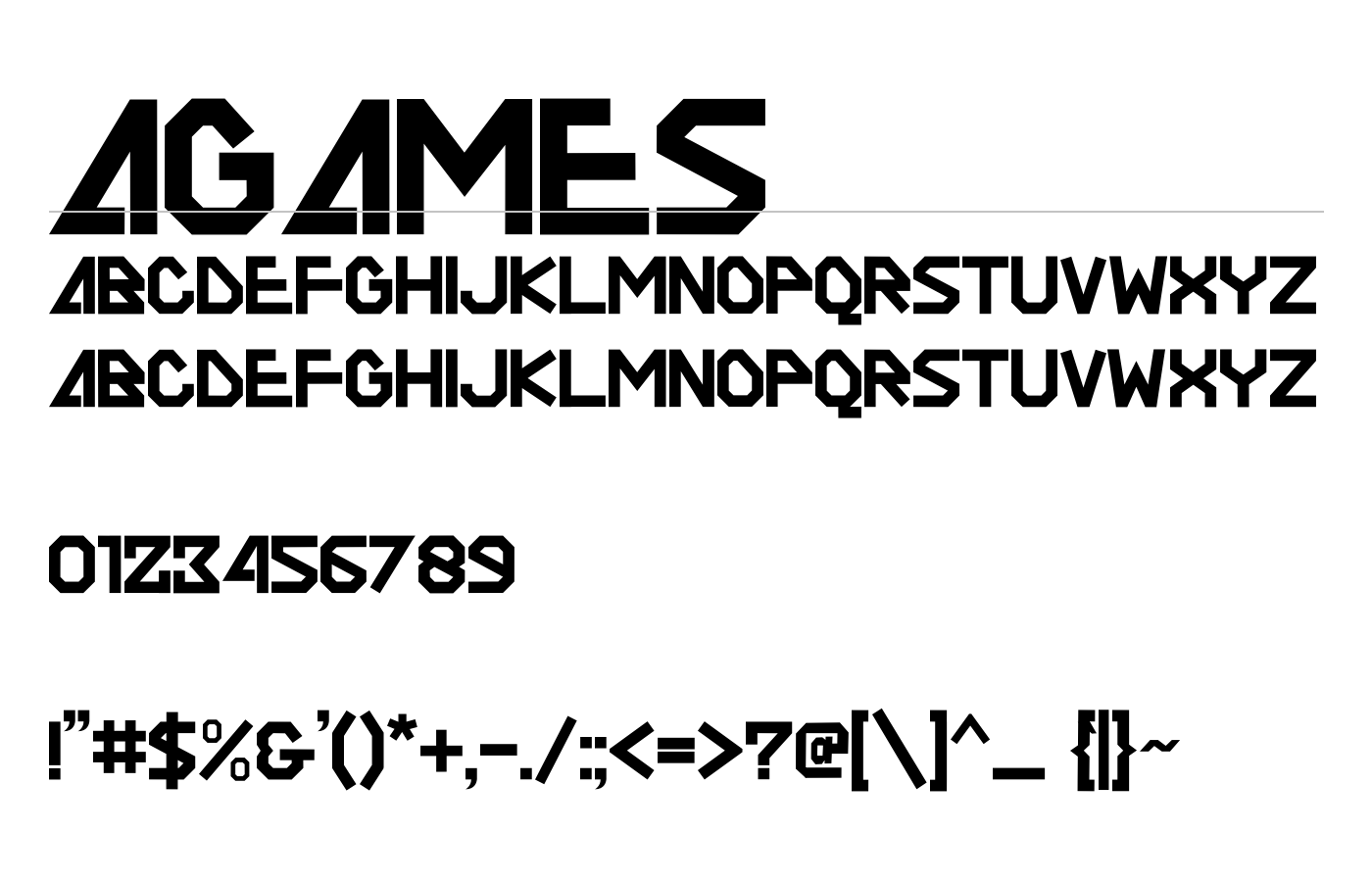
Agoxes Game Font is a bold, geometric sans serif typeface with a futuristic, angular design perfectly suited for gaming and tech-related projects. Its strong, sharp edges and uniform stroke width give it a modern and energetic feel, making it ideal for eye-catching logos, headlines, and digital interfaces where a high-impact, playful yet serious vibe is desired. This font works best in large display settings, capturing attention with its distinctive and edgy style.
Agoxes Game Font
About Agoxes Game Font
| Font family | Agoxes Game Font |
| Designer | Sealoung+Saiful Anwar |